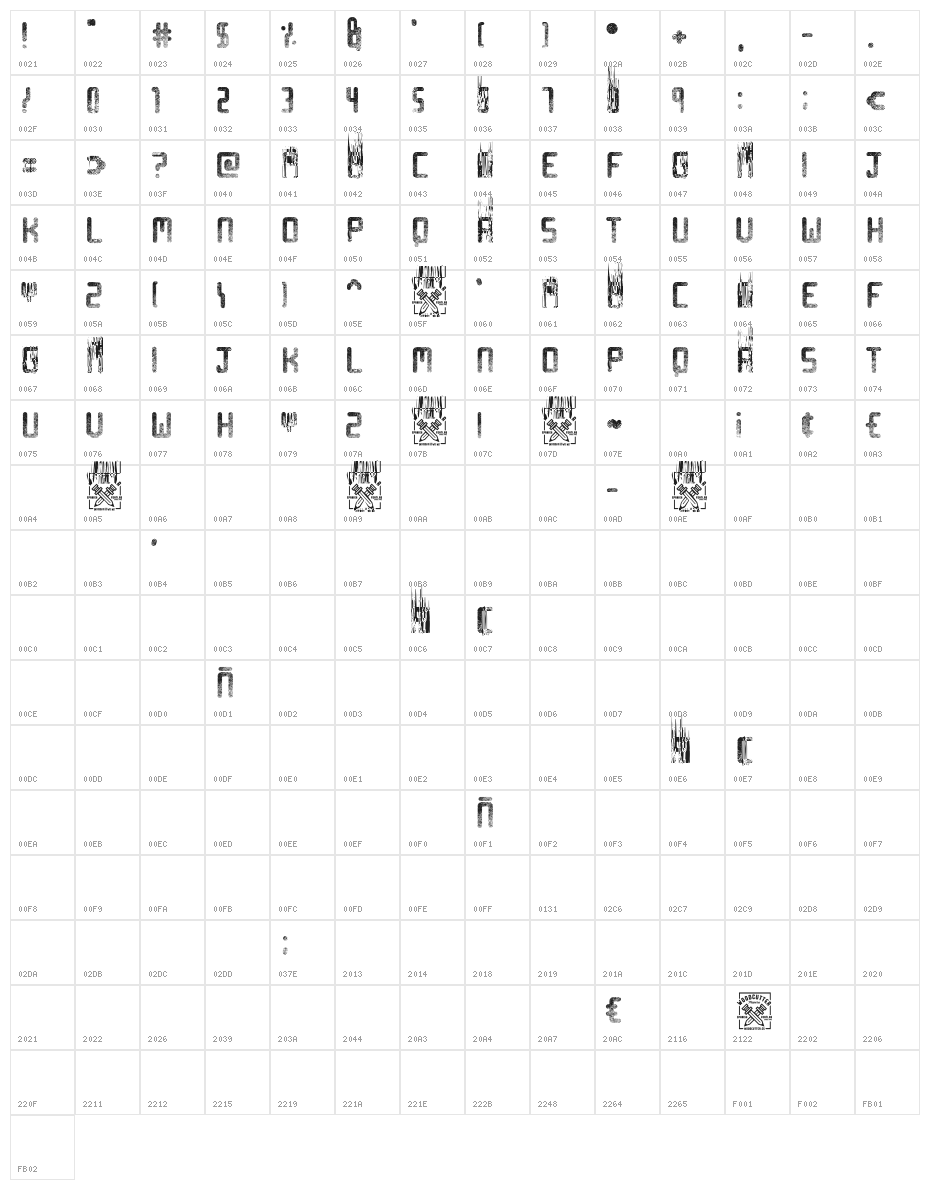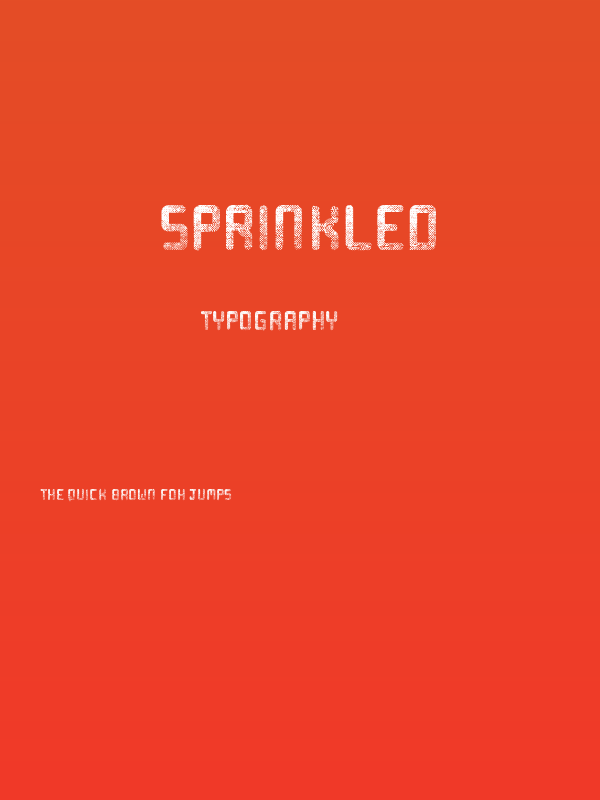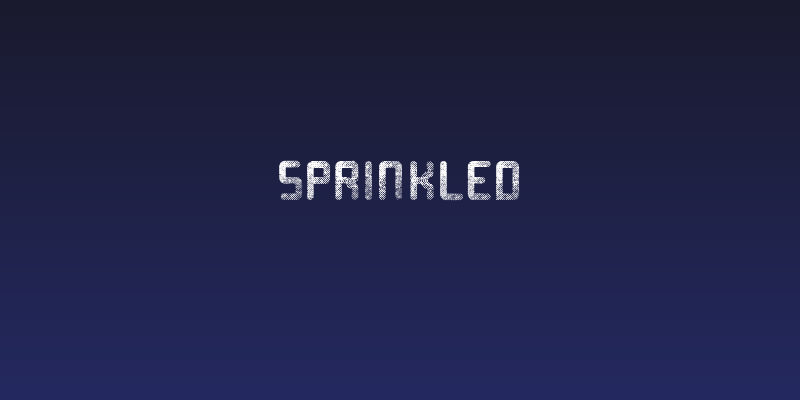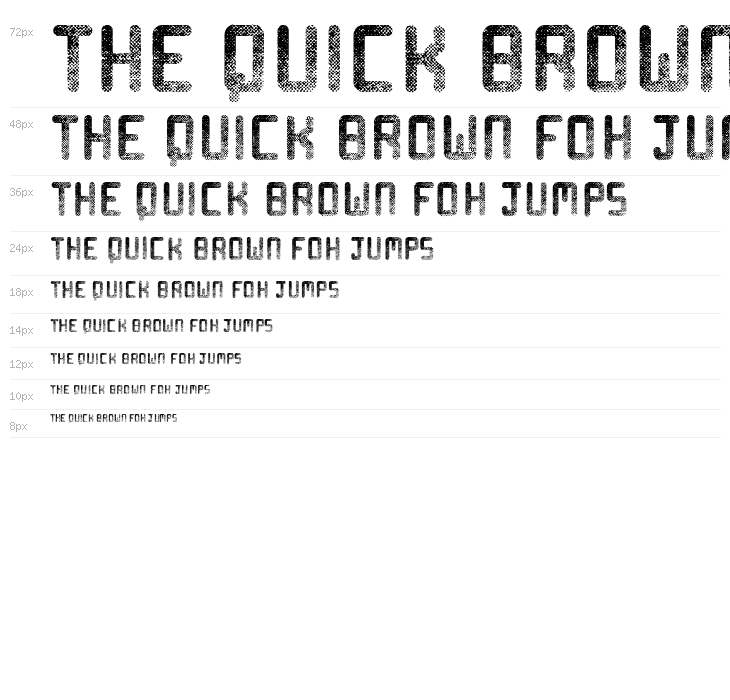
Sprinkled Font
| Progetti proposti | This font is perfect for projects that require a bold statement, such as posters, branding, and packaging. Its unique texture makes it suitable for artistic and creative designs, while its readability ensures it can be used in headlines and titles. |